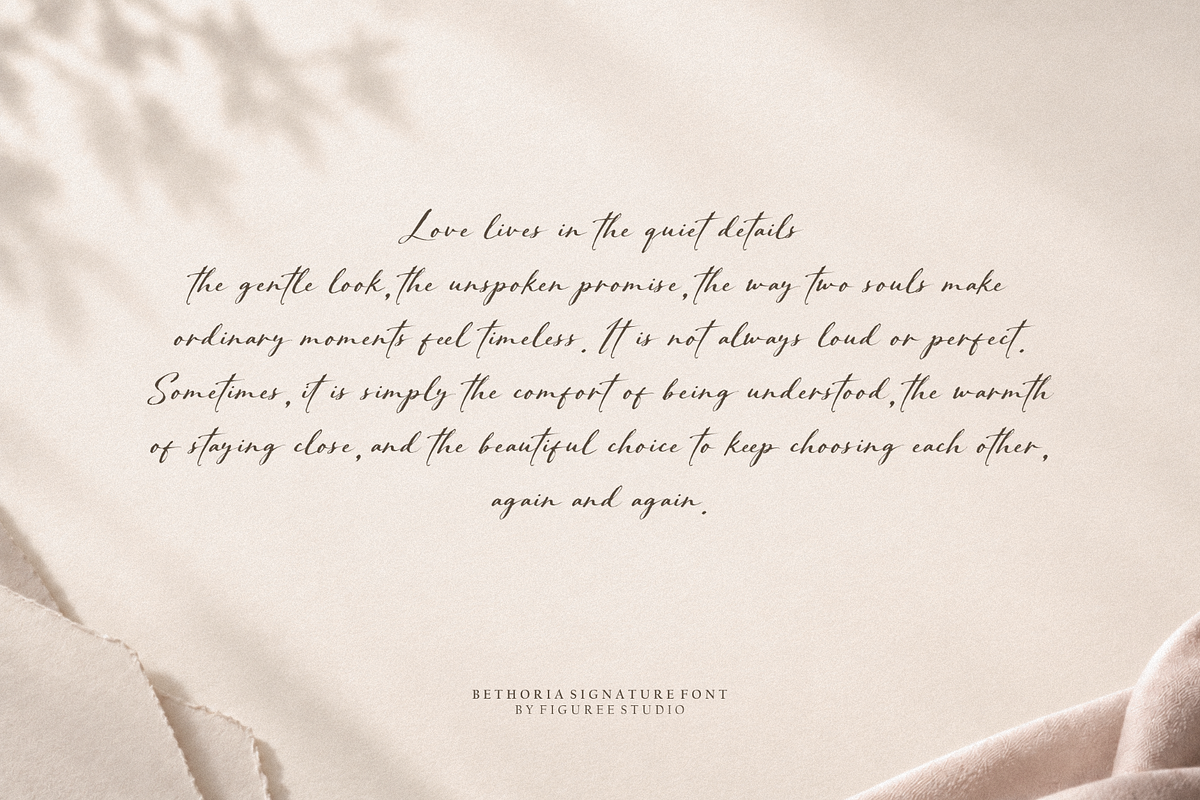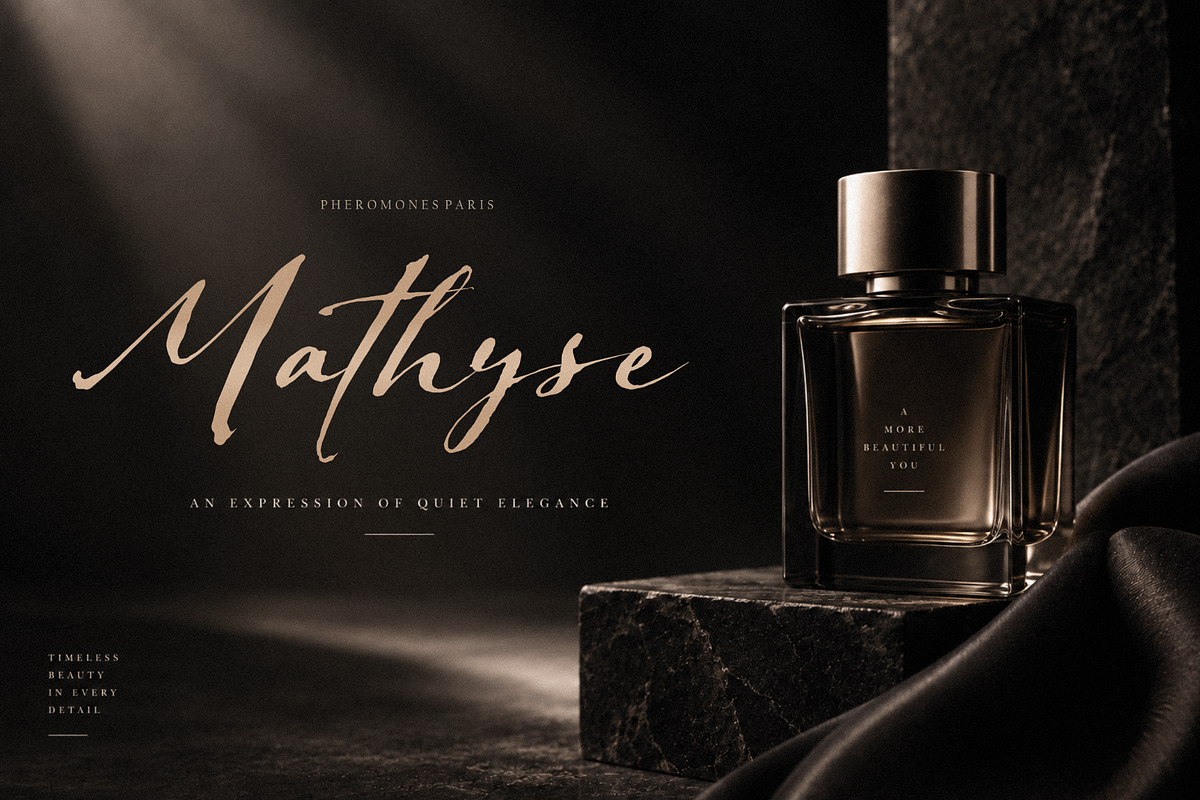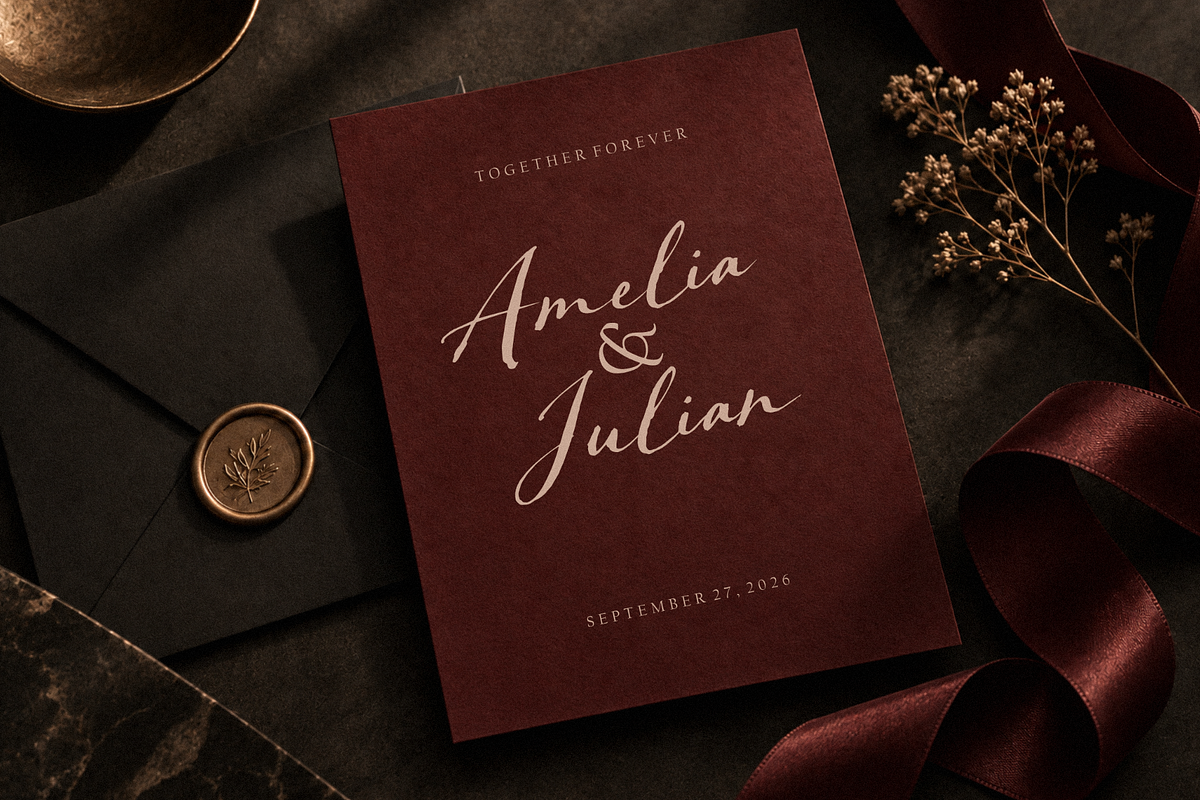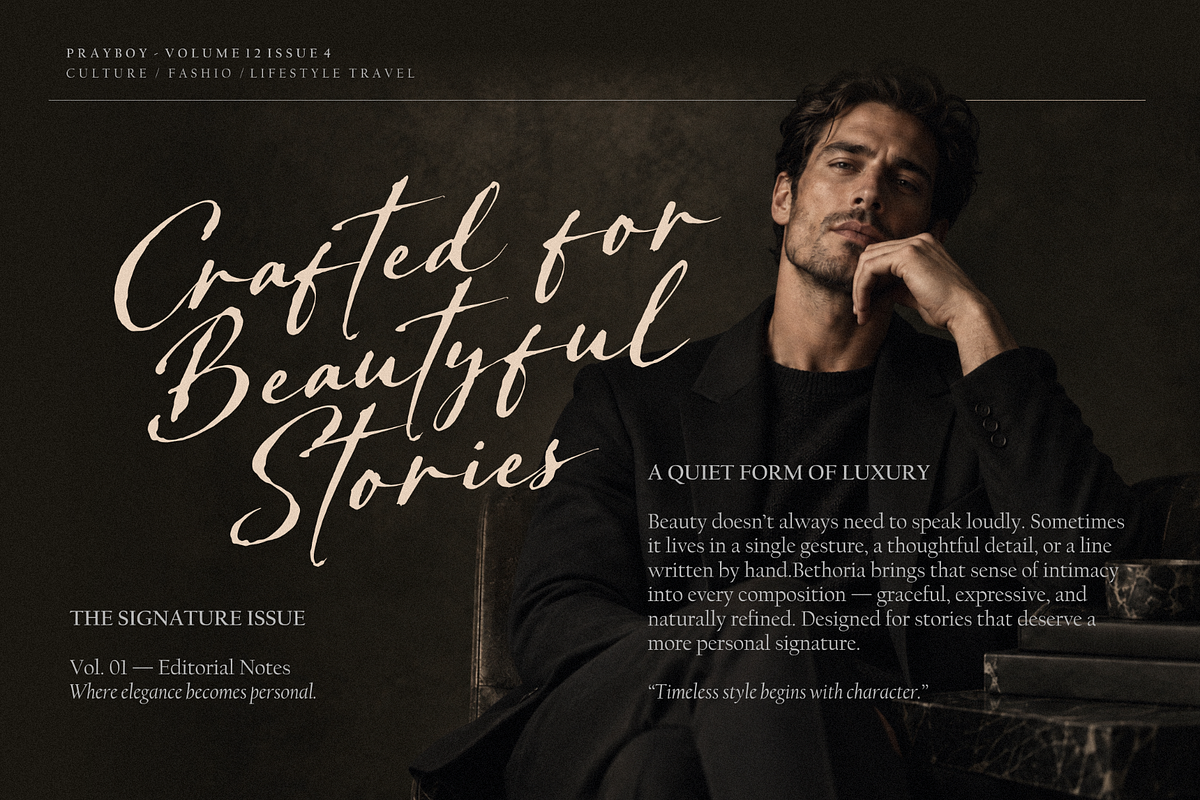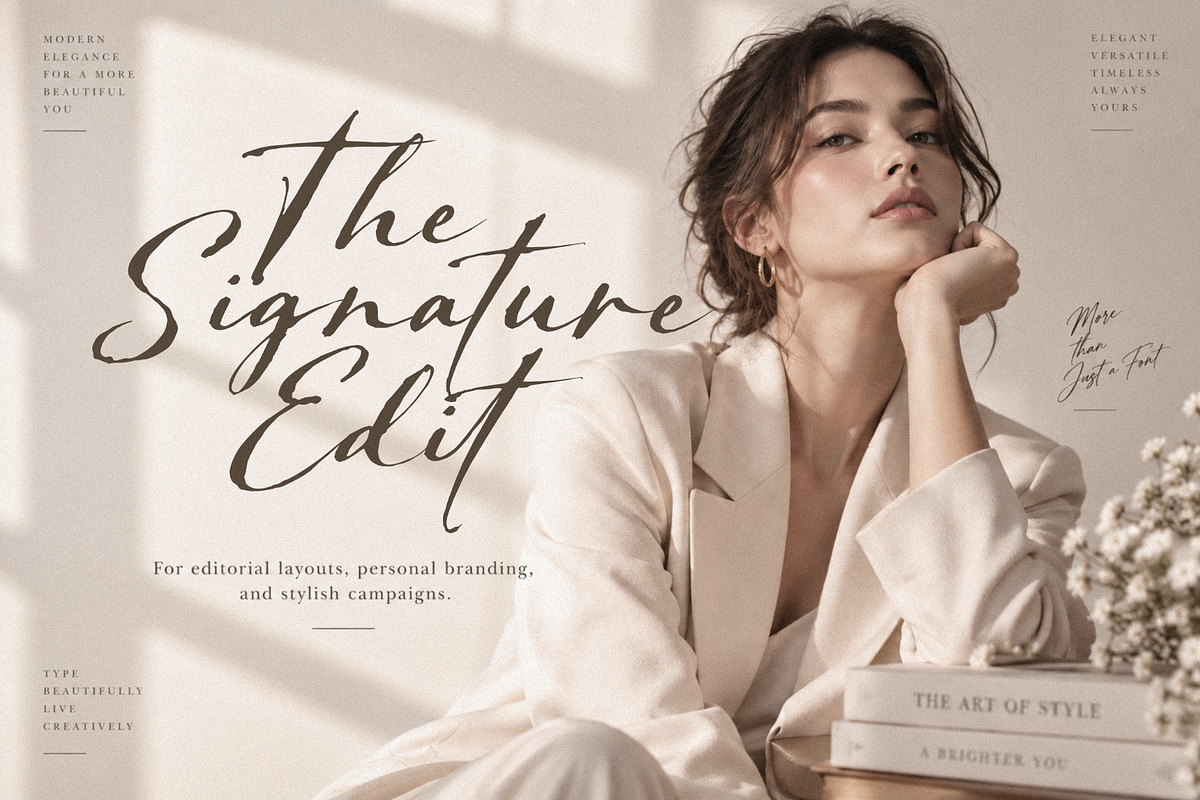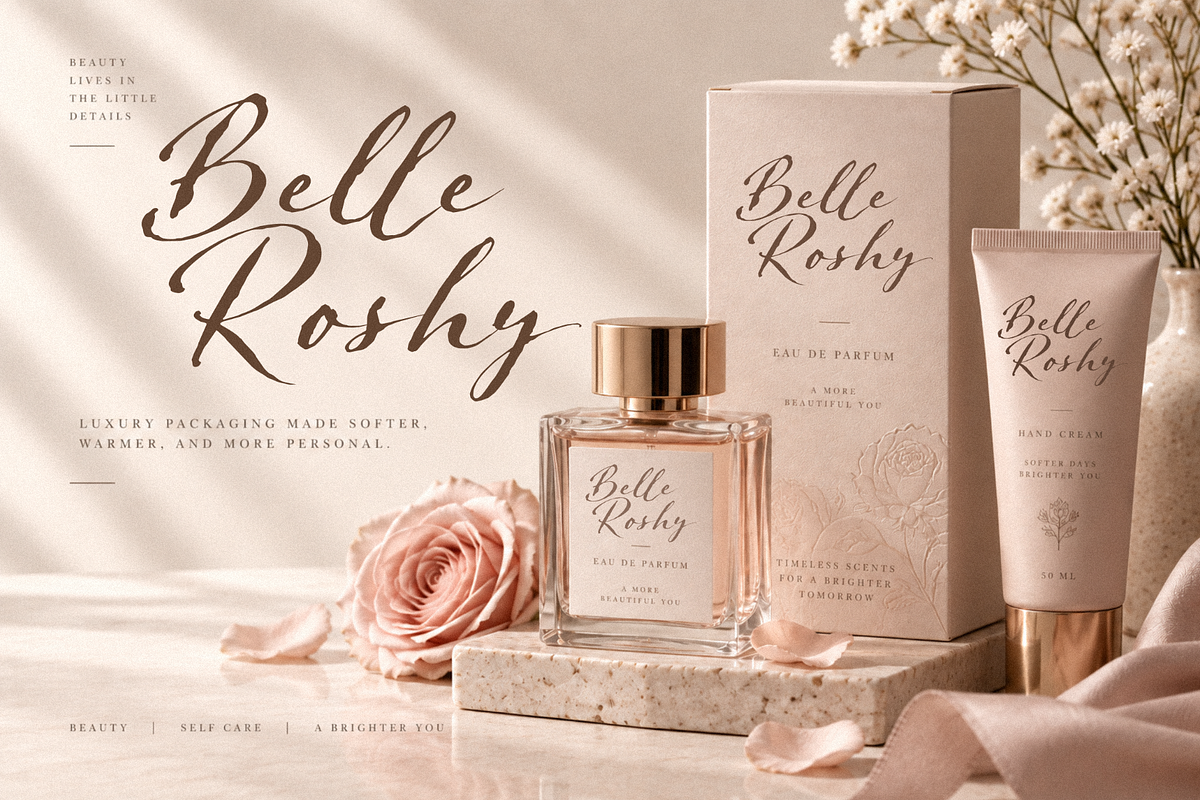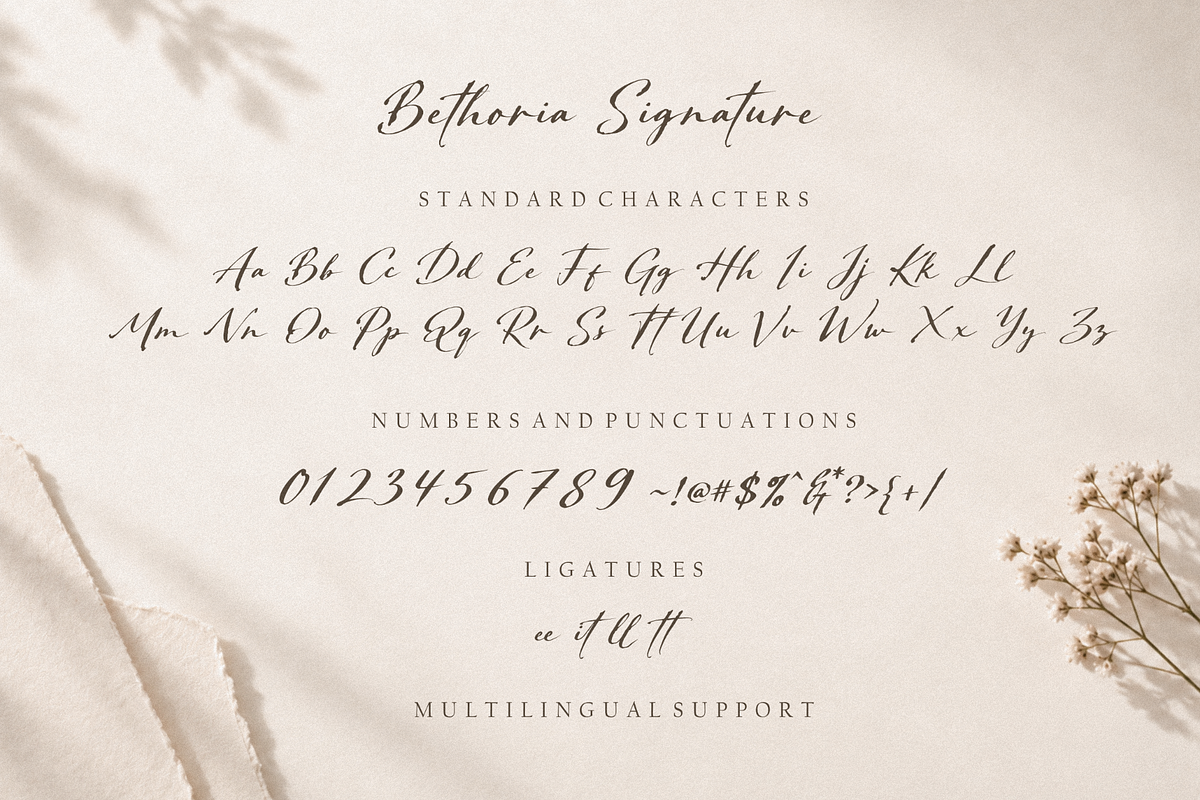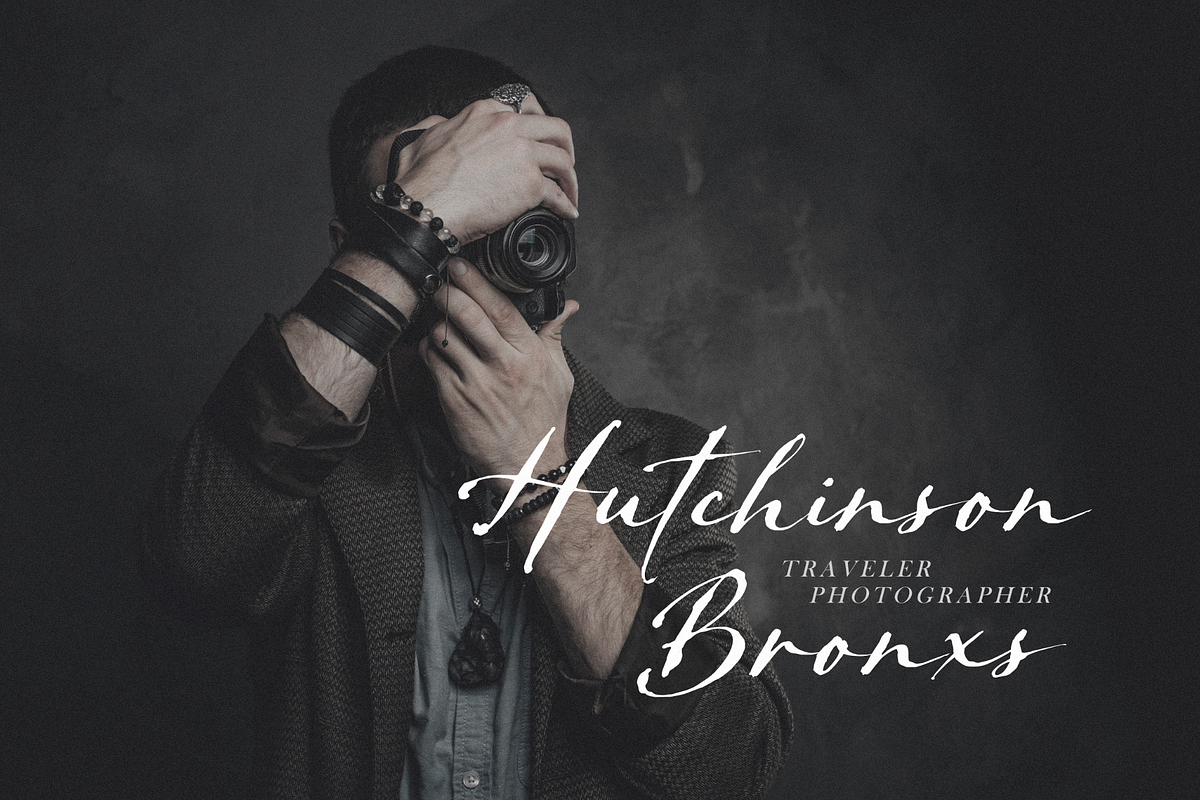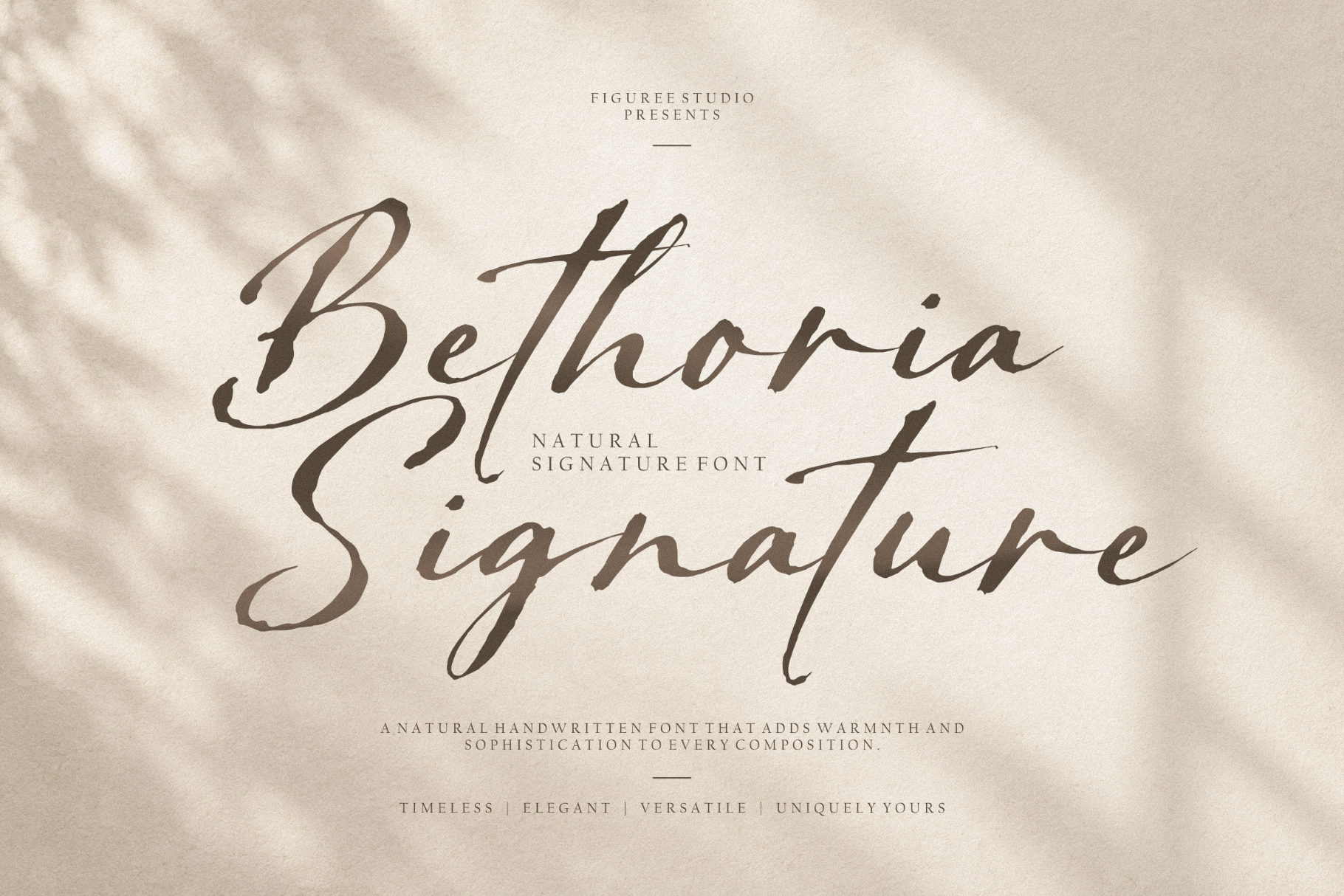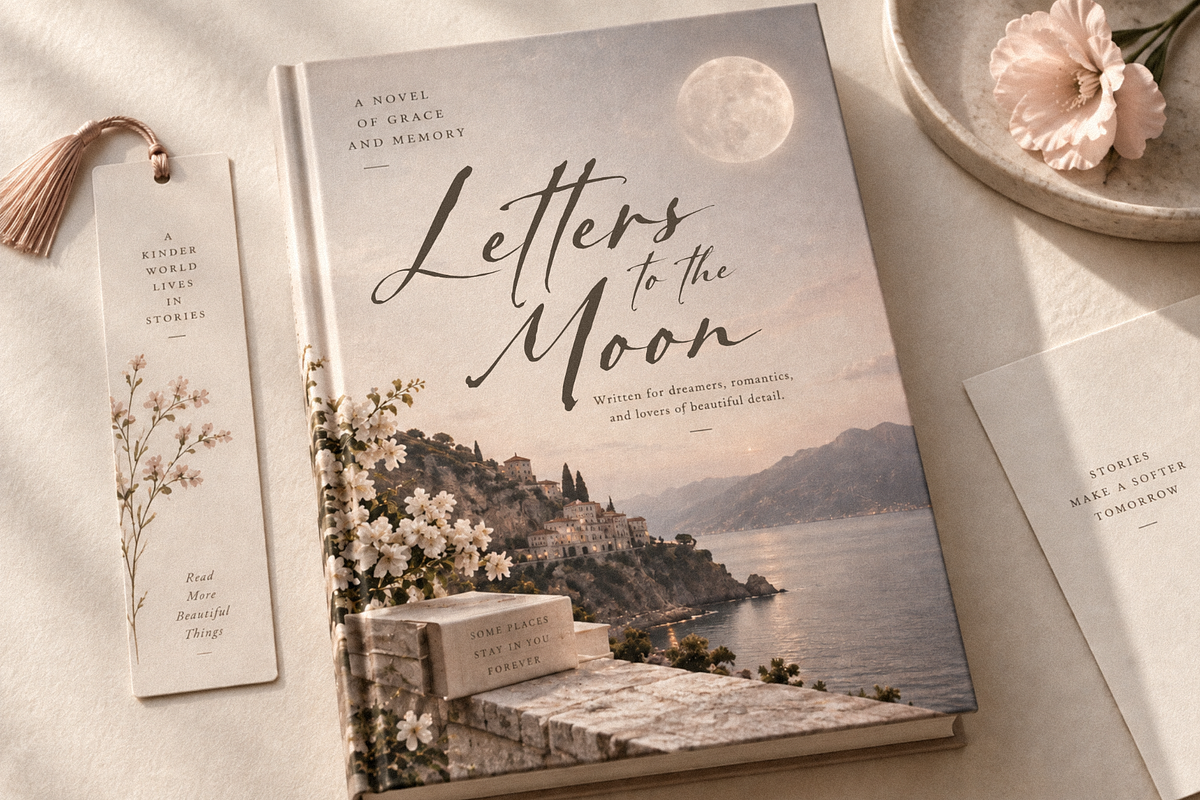
Bethoria - Signature Font
Bethoria Signature is a handwritten font created for projects that need a natural, personal, and expressive signature style. Its flowing letterforms and handwritten rhythm give words a distinctive human touch, making it suitable for designs where typography needs to feel personal rather than formal or mechanical.
The font works especially well for wedding invitations, greeting cards, personal logos, photography titles, quotes, stationery, packaging, product labels, social media graphics, editorial headlines, and event materials. Its signature-inspired appearance can be used for both prominent titles and smaller decorative phrases, helping create a clear visual focal point.
Bethoria Signature includes uppercase and lowercase characters, numbers, punctuation, symbols, multilingual support, and ligatures. The combination of uppercase and lowercase letters allows you to build varied compositions, while the ligatures help selected letter combinations connect with a more natural handwritten flow.
Use Bethoria Signature for names on invitations, short quotes on cards, signatures on photography layouts, headings on printed materials, or decorative text on packaging. It can also be paired with a simple serif or sans serif typeface when you need contrast between expressive headlines and readable supporting copy.
Numbers, punctuation, and symbols
Ligatures for more natural letter connections
Natural handwritten signature character
Suitable for short headlines and decorative typography
Works across print and digital design projects
Easy to combine with serif and sans serif typography
Perfect for Creative Projects
Bethoria Signature can adapt to a wide range of typography-focused applications. Create wedding stationery, save-the-date cards, thank-you cards, greeting cards, personal identity designs, packaging titles, product labels, photography watermarks, social media posts, quote graphics, book titles, posters, menus, event invitations, and digital content.
The handwritten character is particularly effective when a design needs a personal message or signature-like finishing touch. Instead of relying on rigid lettering, Bethoria Signature introduces movement and variation that can help titles, names, and short phrases become the central visual element.
Why Designers Love It
Designers can use Bethoria Signature when they need expressive lettering without drawing every word manually. Its ligatures contribute to a more connected appearance, while the complete character selection provides flexibility for different copy and languages.
It is also easy to build typography hierarchy around the font. Use Bethoria Signature as the main handwritten element, then pair it with restrained supporting typography for dates, descriptions, addresses, or other information. This makes it useful for layouts ranging from minimal invitations to detailed packaging and editorial compositions.
Make Every Message Feel Personal
Give names, messages, invitations, quotes, and headlines a recognizable handwritten voice with Bethoria Signature. From wedding stationery and greeting cards to packaging, photography, social media, and personal identity projects, this handwritten signature font helps transform ordinary words into expressive typography that becomes part of the design itself.